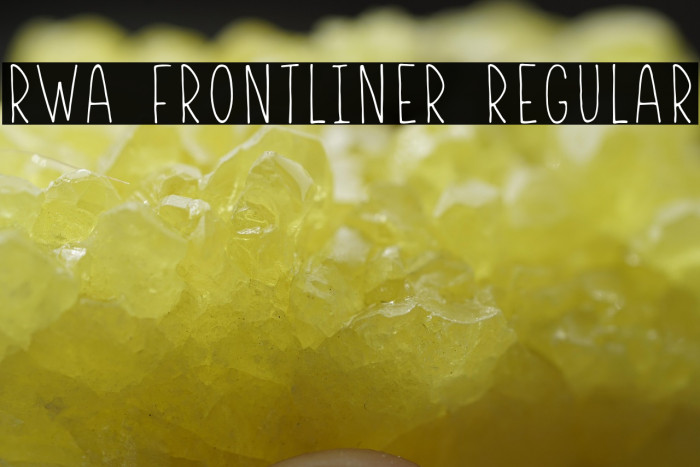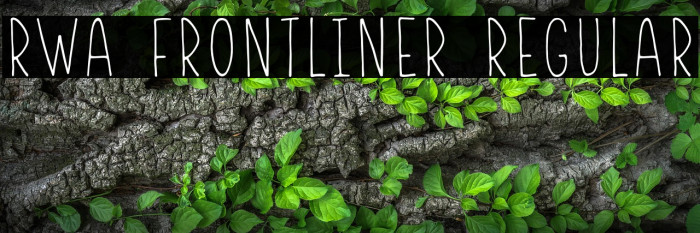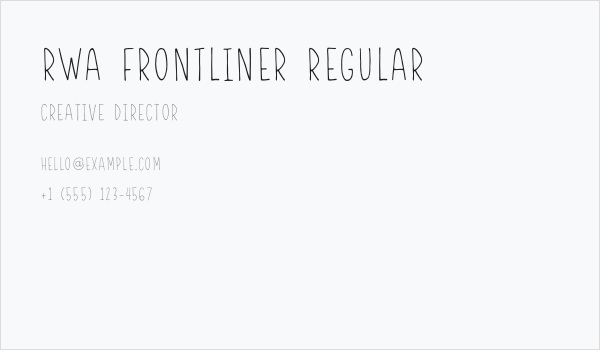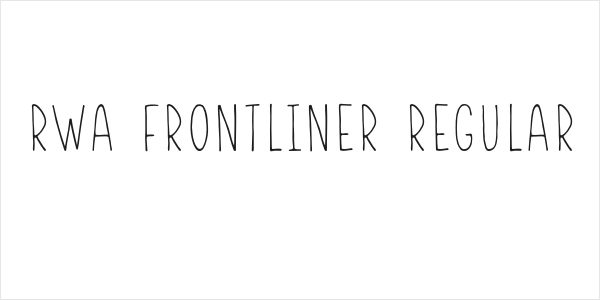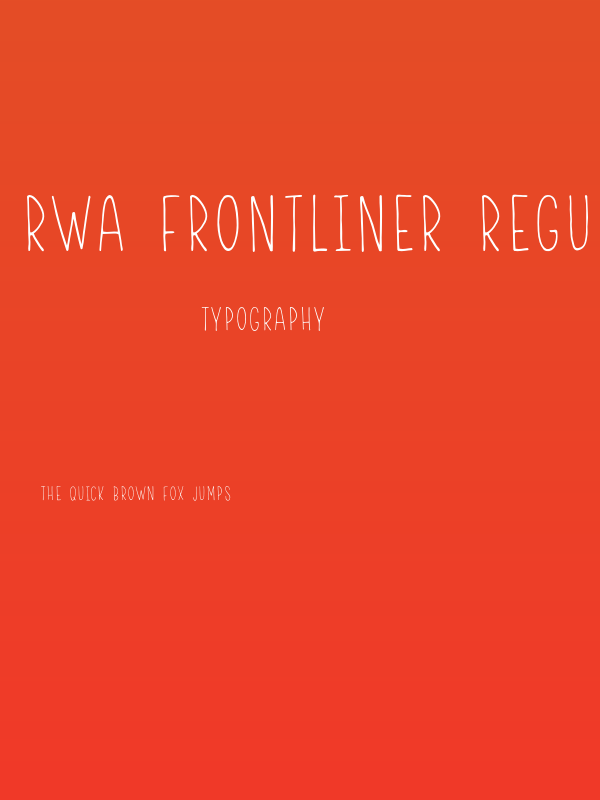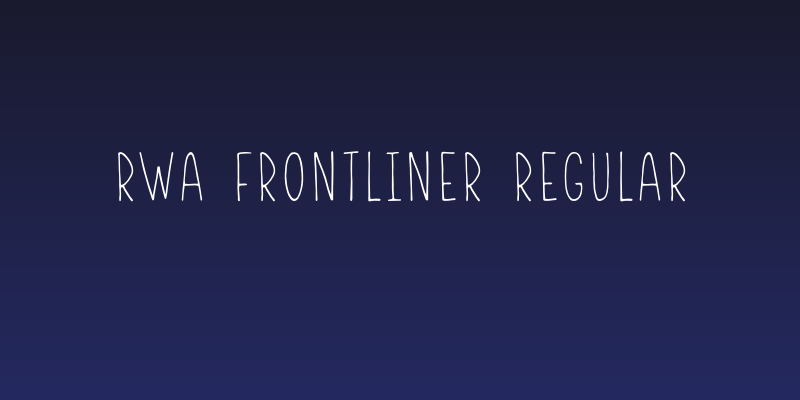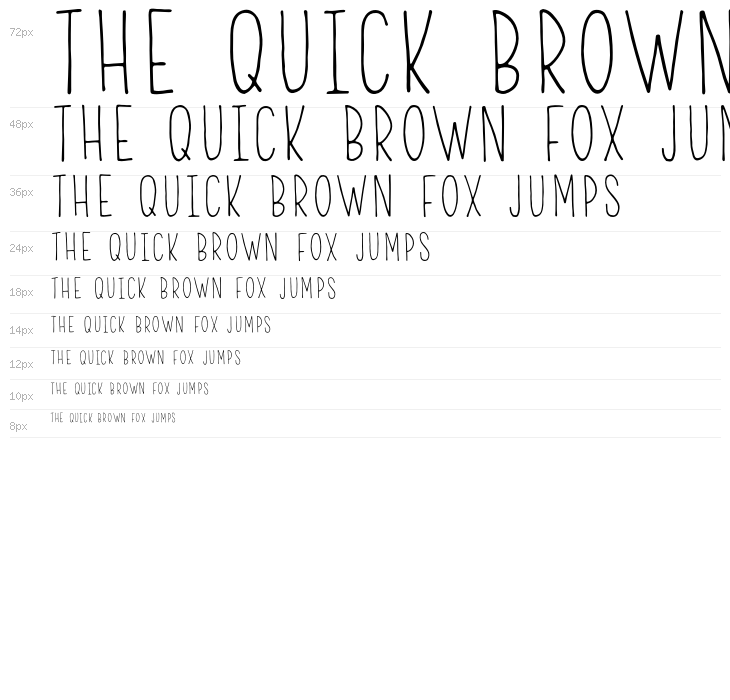
RWA Frontliner Regular Font
RWA Frontliner Regular Description
This font features a playful and casual handwritten style, characterized by its tall and narrow letterforms. The strokes are slightly uneven, giving it a natural and organic feel. The uppercase and lowercase letters maintain a consistent height, contributing to its legibility. The numbers and special characters are designed with the same whimsical touch, making it suitable for informal and creative projects. Its simplicity and charm make it versatile for various design needs.
| Proposed Projects | Ideal for greeting cards, children's books, casual branding, and creative social media graphics. |